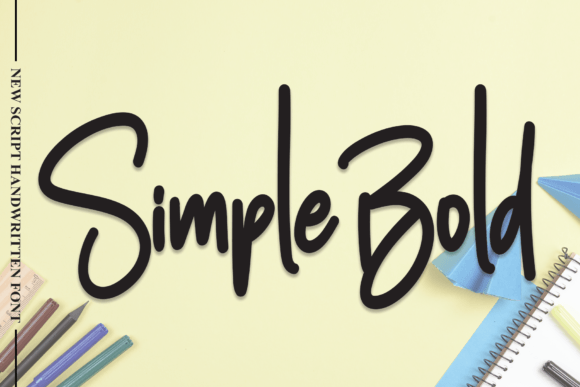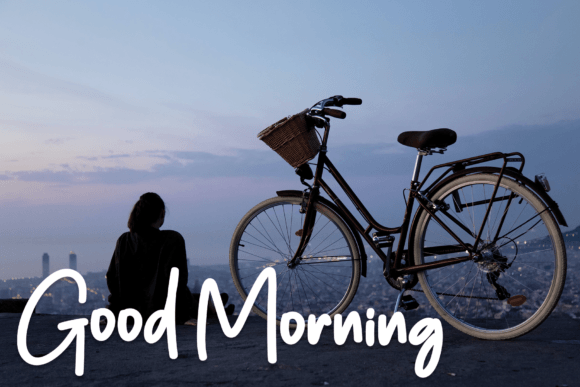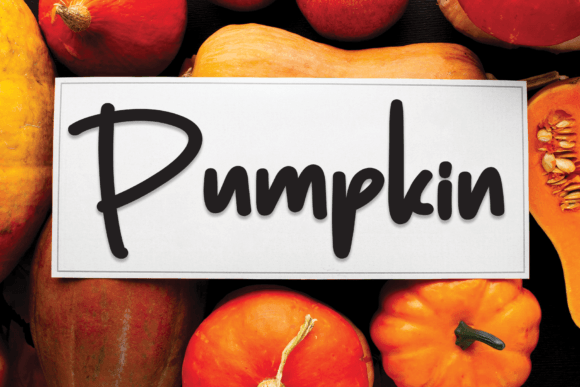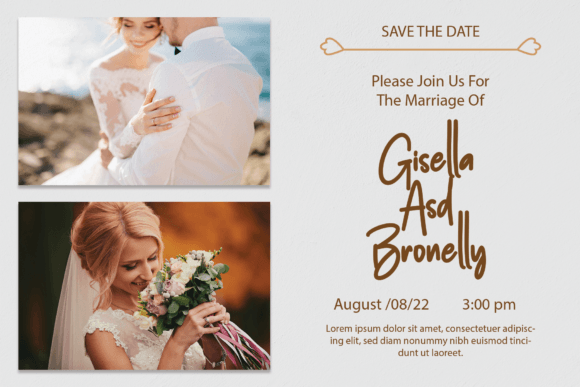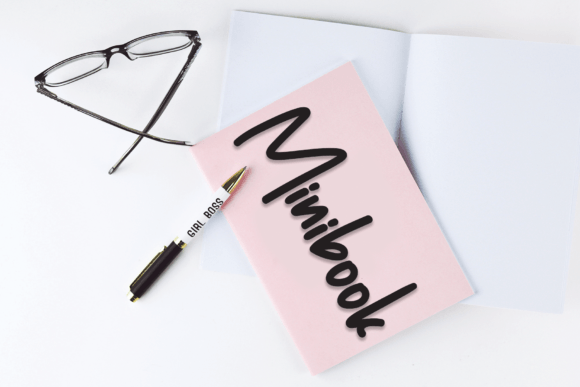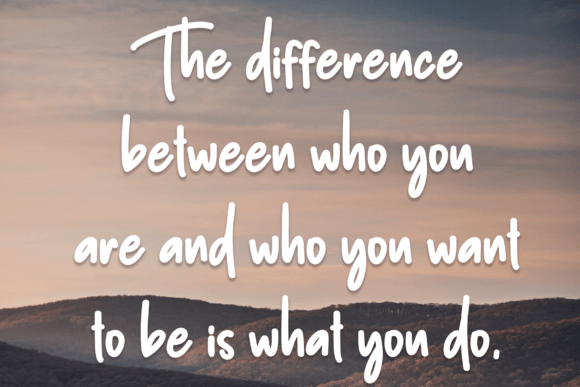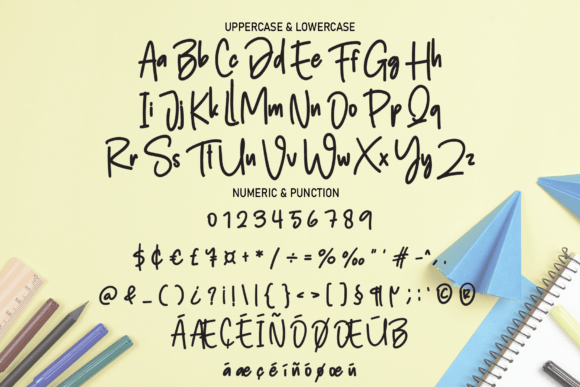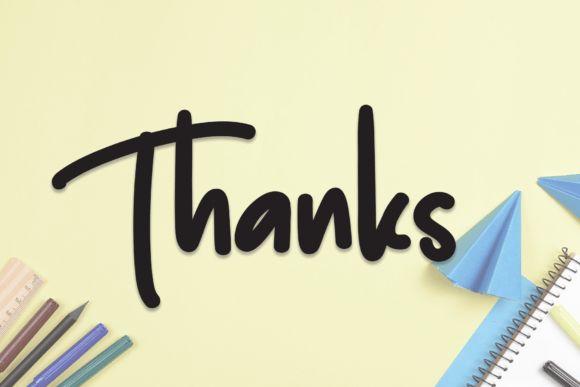
Simple Bold Font
About Simple Bold Font
**Simple Bold: A Versatile Handwritten Font with Enchanting Appeal**
Simple Bold is a captivating handwritten font that exudes versatility and charm. This font’s wide spectrum of applications ranges from greeting cards to headlines, making it a fantastic choice for adding a romantic and enchanting touch to your next project.
The font’s handwritten style adds a personal and intimate feel to your designs, making it perfect for conveying heartfelt messages and emotions. Whether you’re creating greeting cards, posters, social media graphics, or headlines for a romantic event, Simple Bold brings a touch of romance to your typography.
One of the key strengths of Simple Bold is its adaptability. Its well-crafted characters and balanced design ensure that it remains legible and stylish across a variety of design contexts. Whether you need a bold statement or a subtle accent, Simple Bold delivers.
In summary, Simple Bold is an enchanting handwritten font that can elevate your designs with its romantic and versatile appeal. Use it to infuse your projects with a touch of intimacy and charm, whether you’re working on personal greetings or professional headlines. Choose Simple Bold to add an enchanting quality to your creative endeavors.